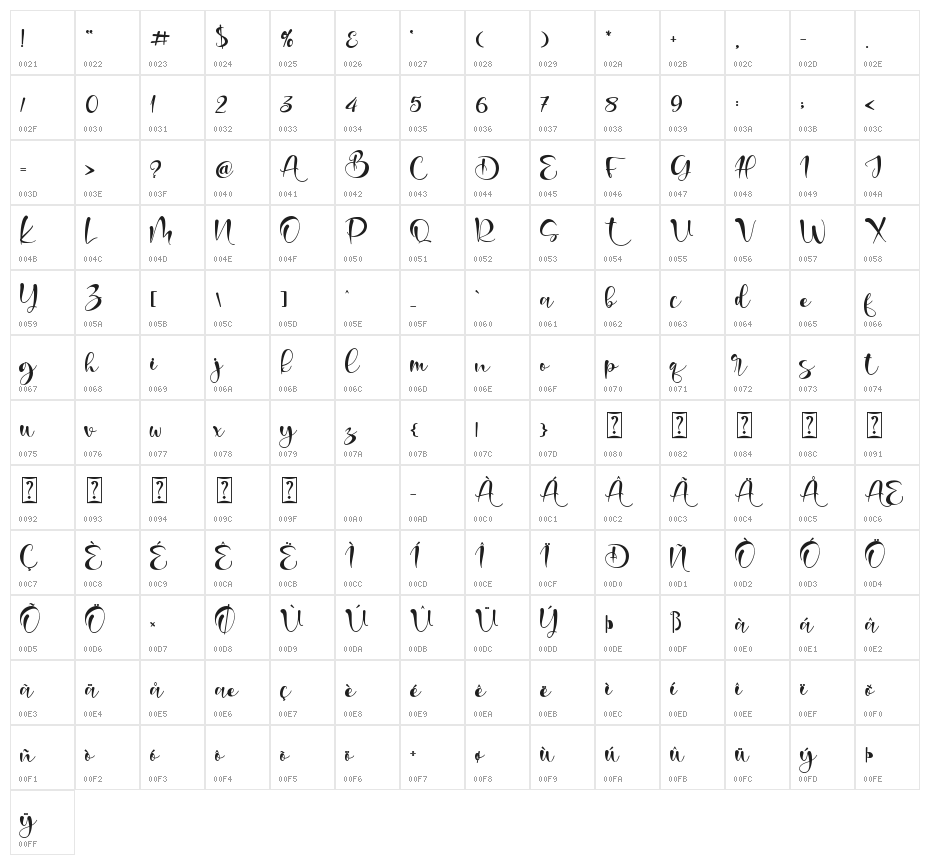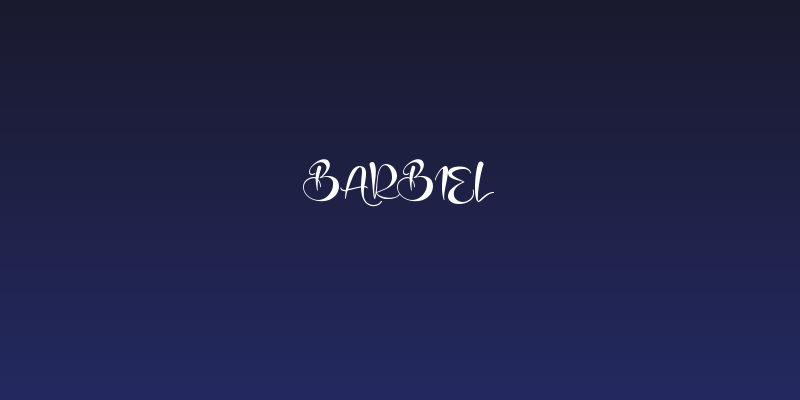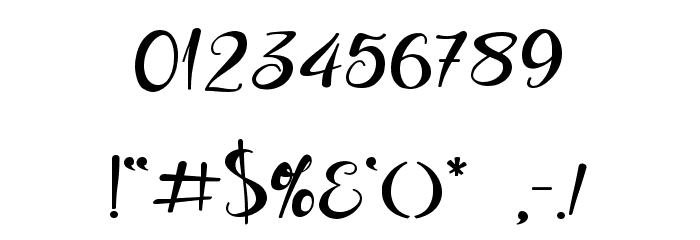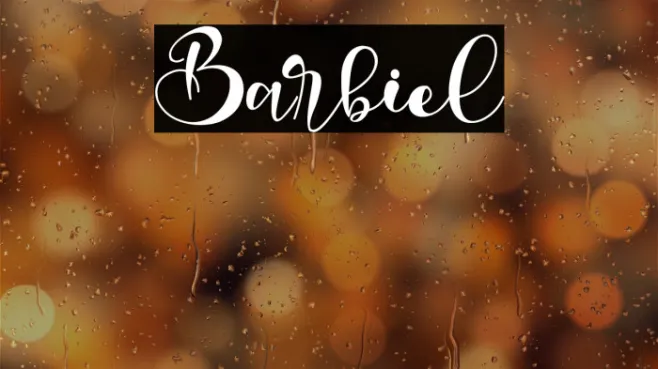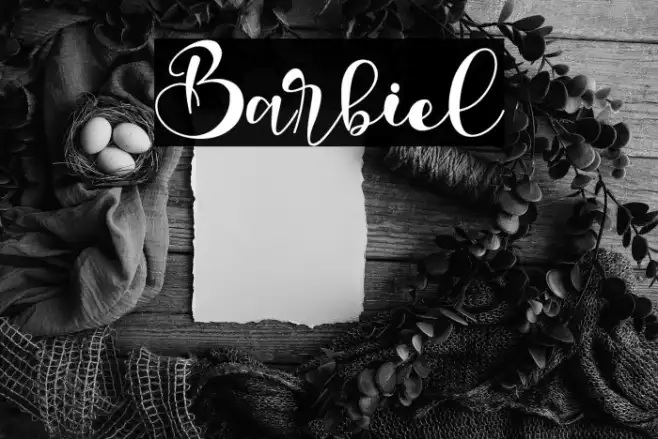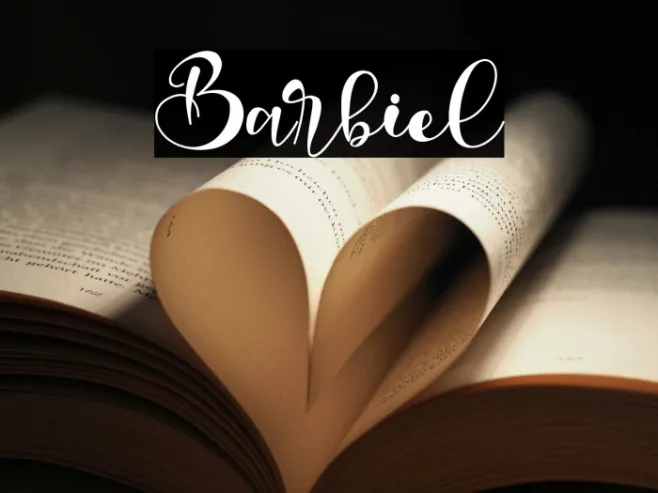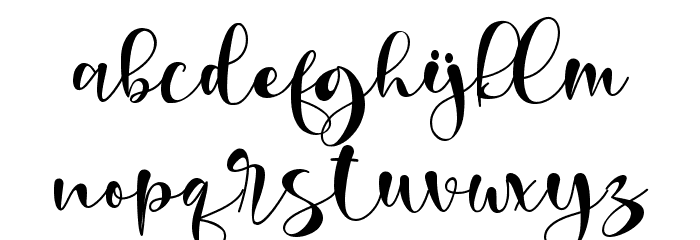
Barbiel Font
Barbiel Description
This font exudes elegance and sophistication with its flowing, cursive script style. The letters are intricately designed with smooth curves and flourishes, giving it a hand-drawn appearance. The uppercase letters are bold and dramatic, while the lowercase letters maintain a graceful and fluid form. The numbers are consistent with the overall style, featuring similar curves and embellishments. Special characters are thoughtfully integrated, maintaining the font's cohesive aesthetic. This font is perfect for projects that require a touch of class and creativity.